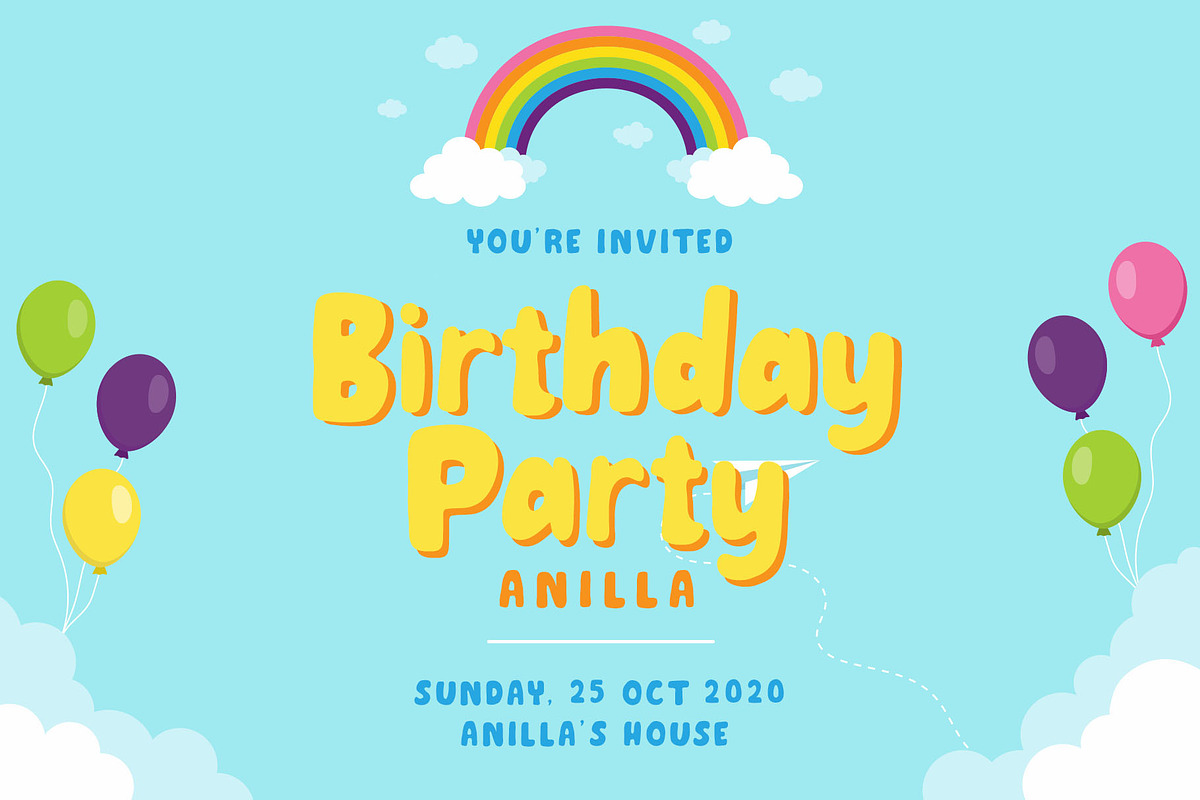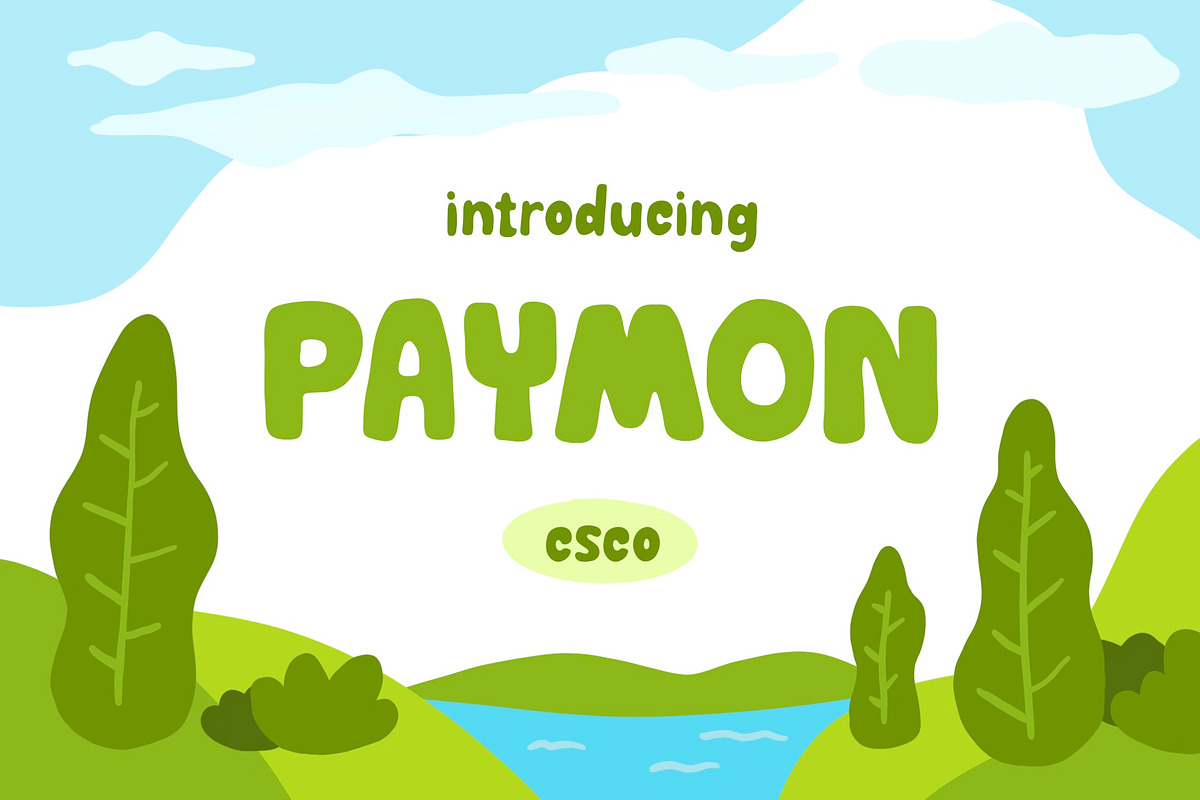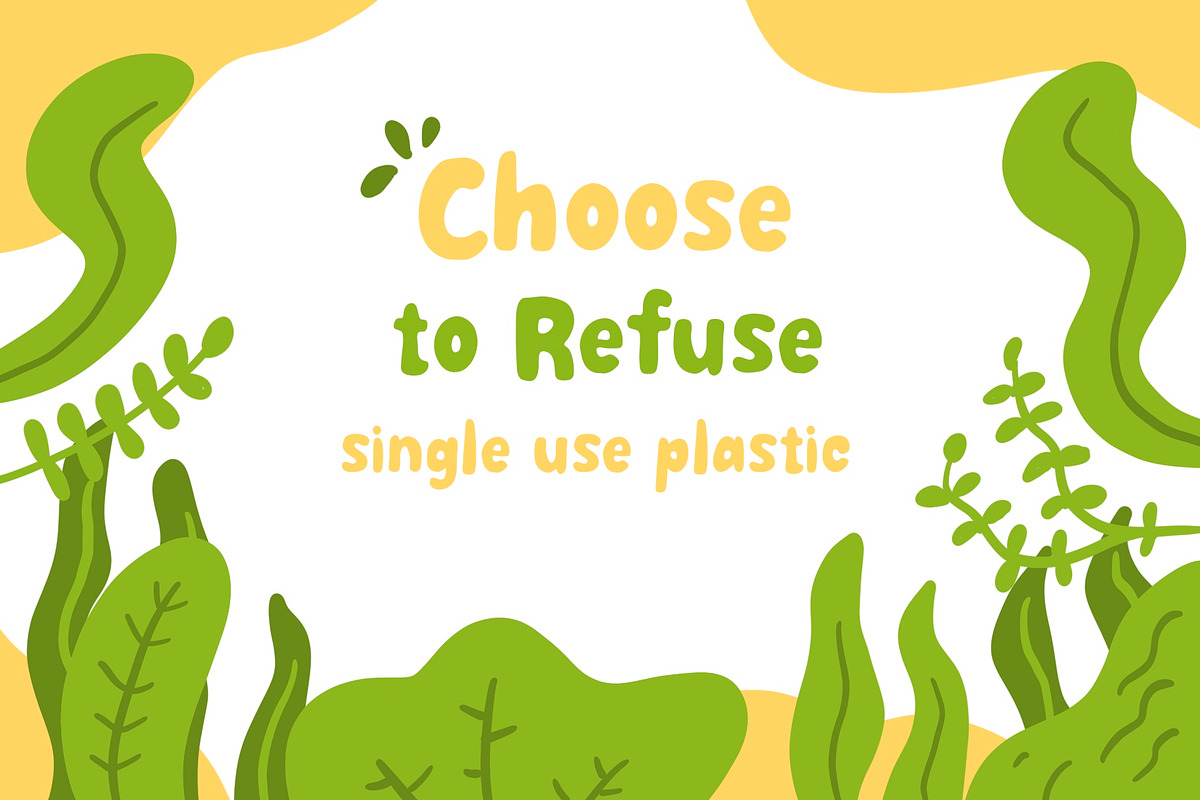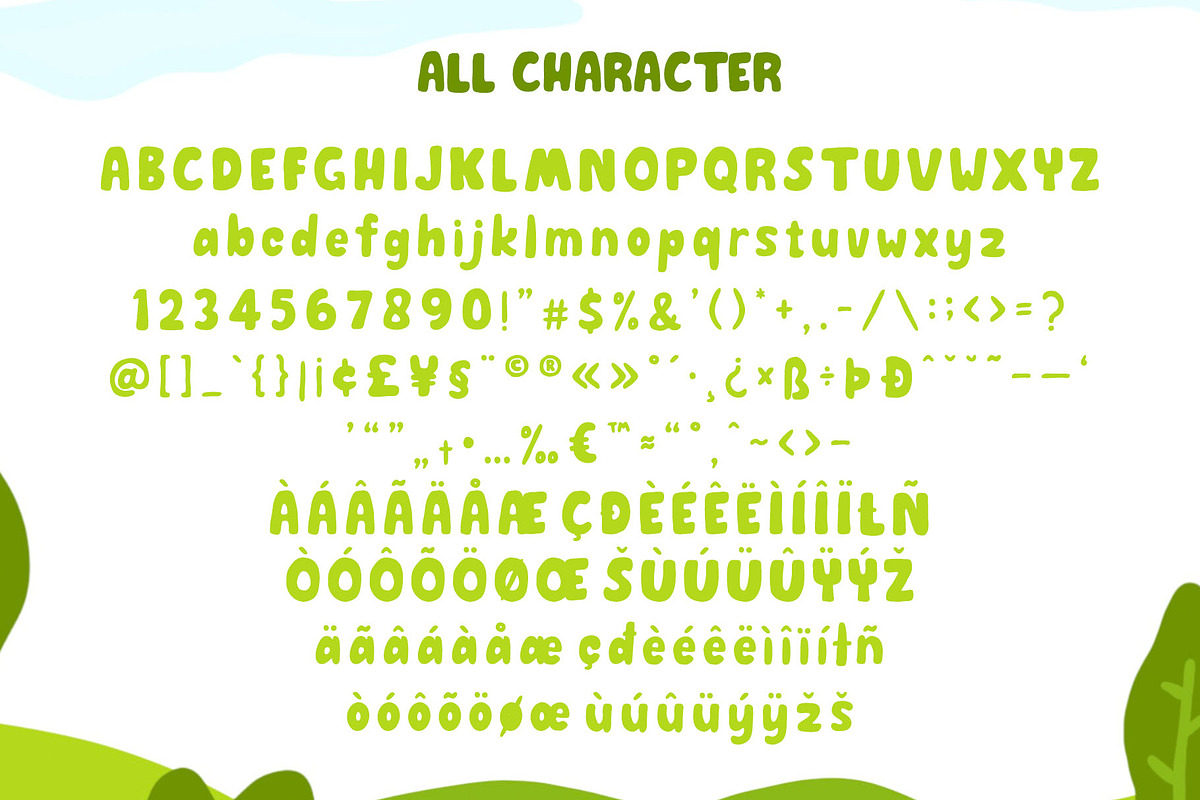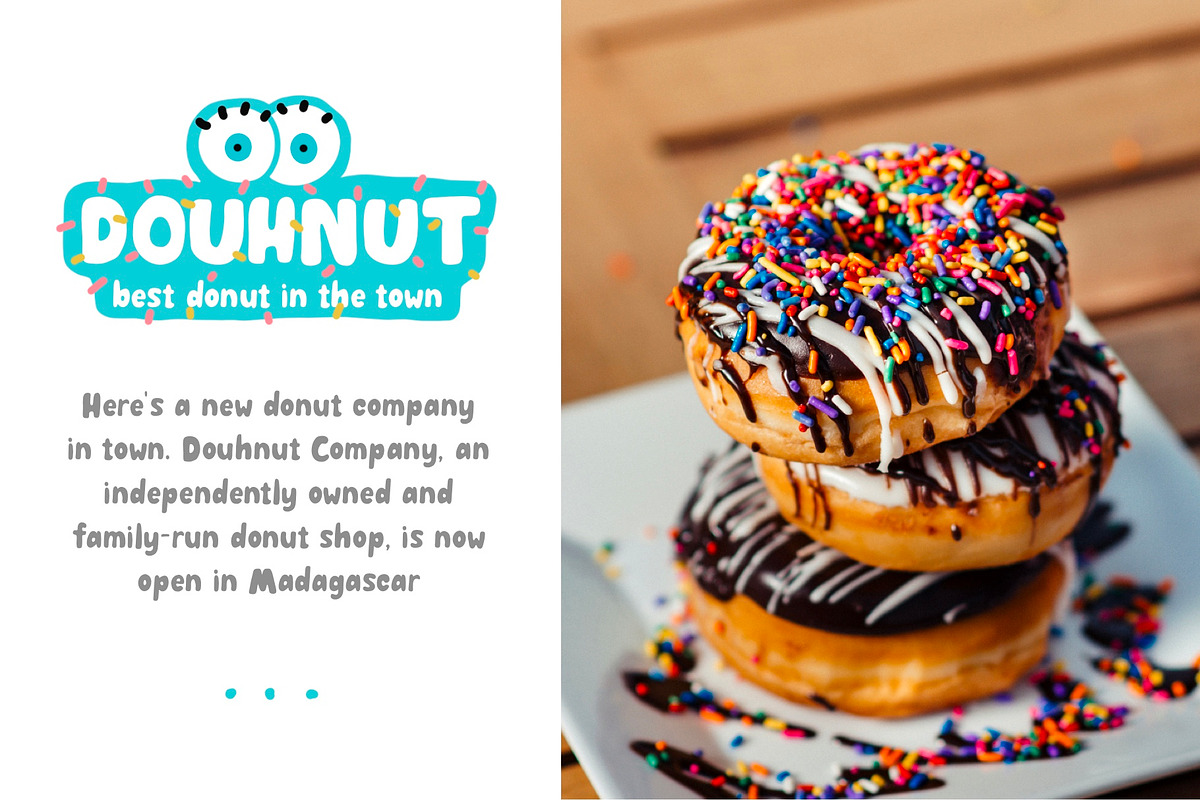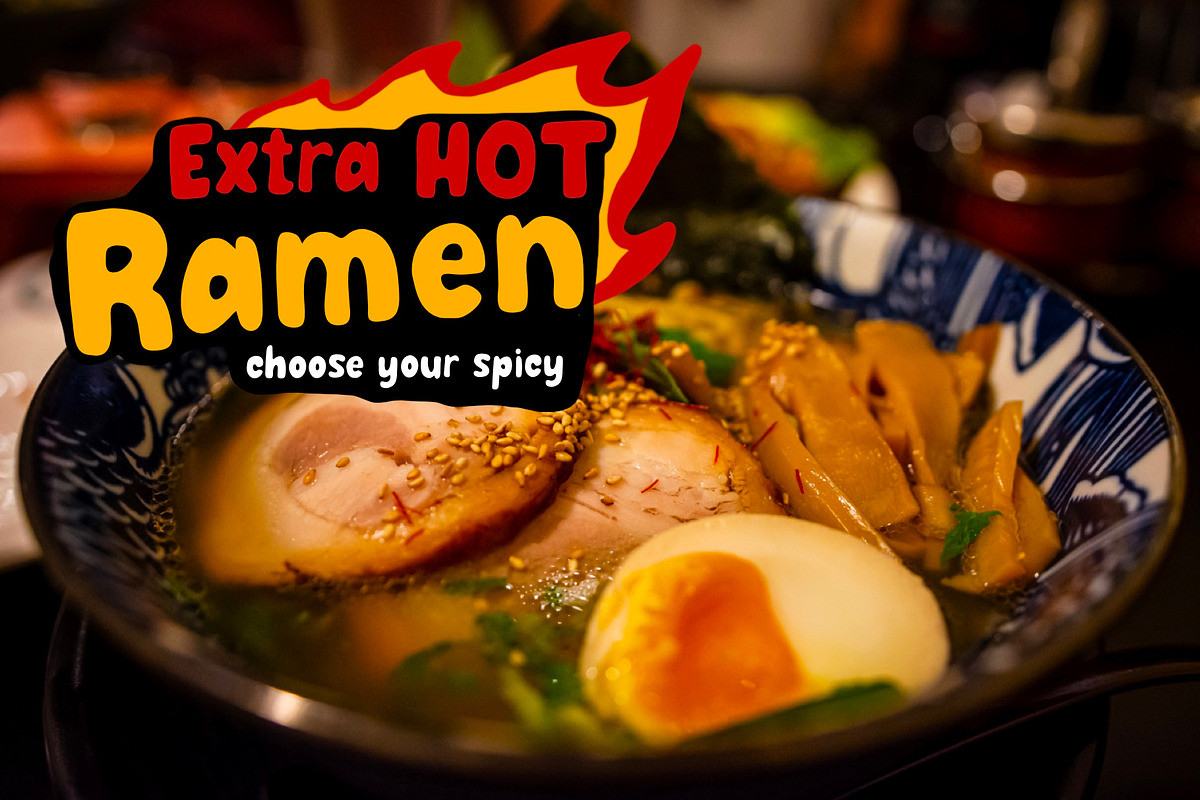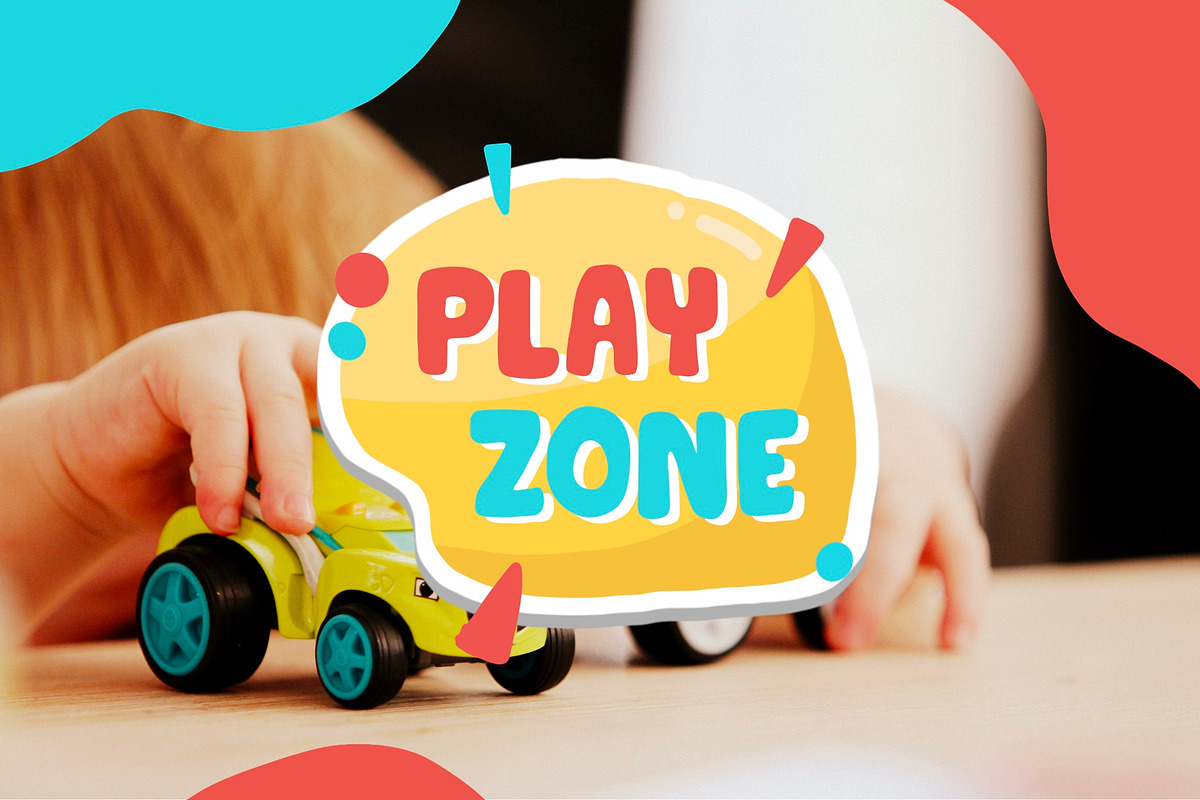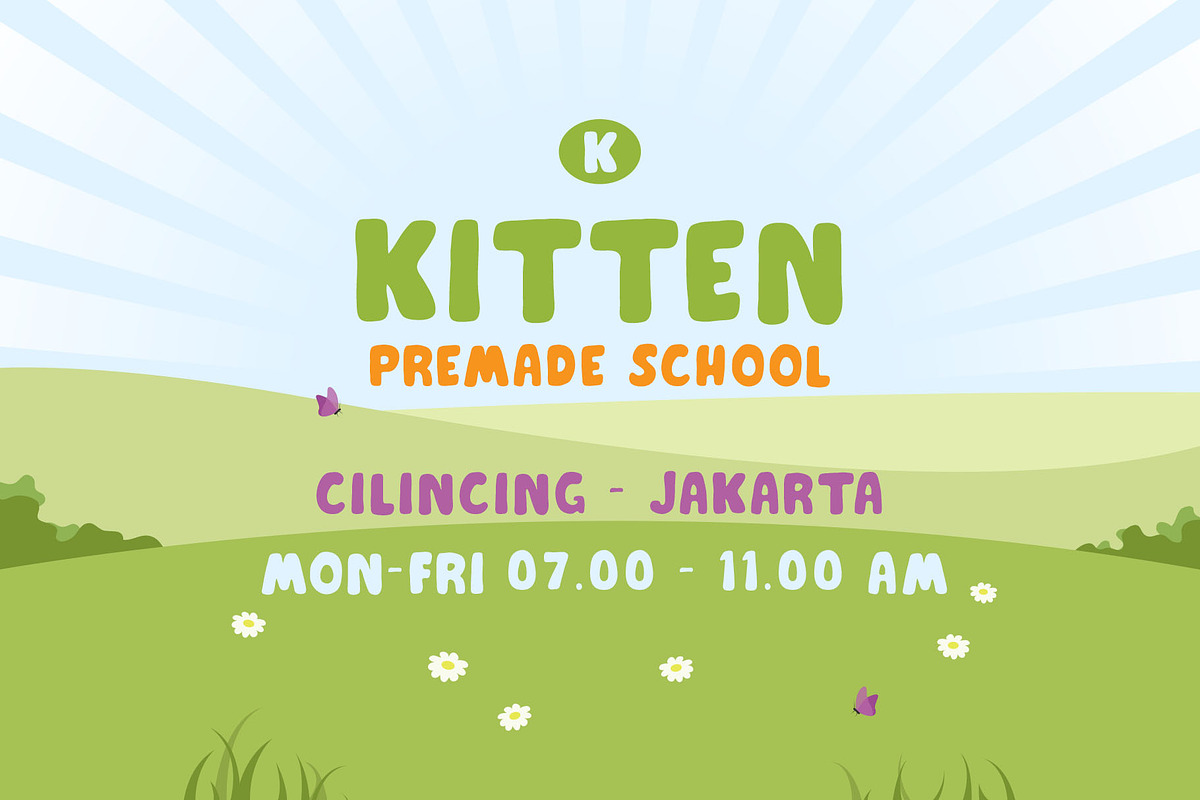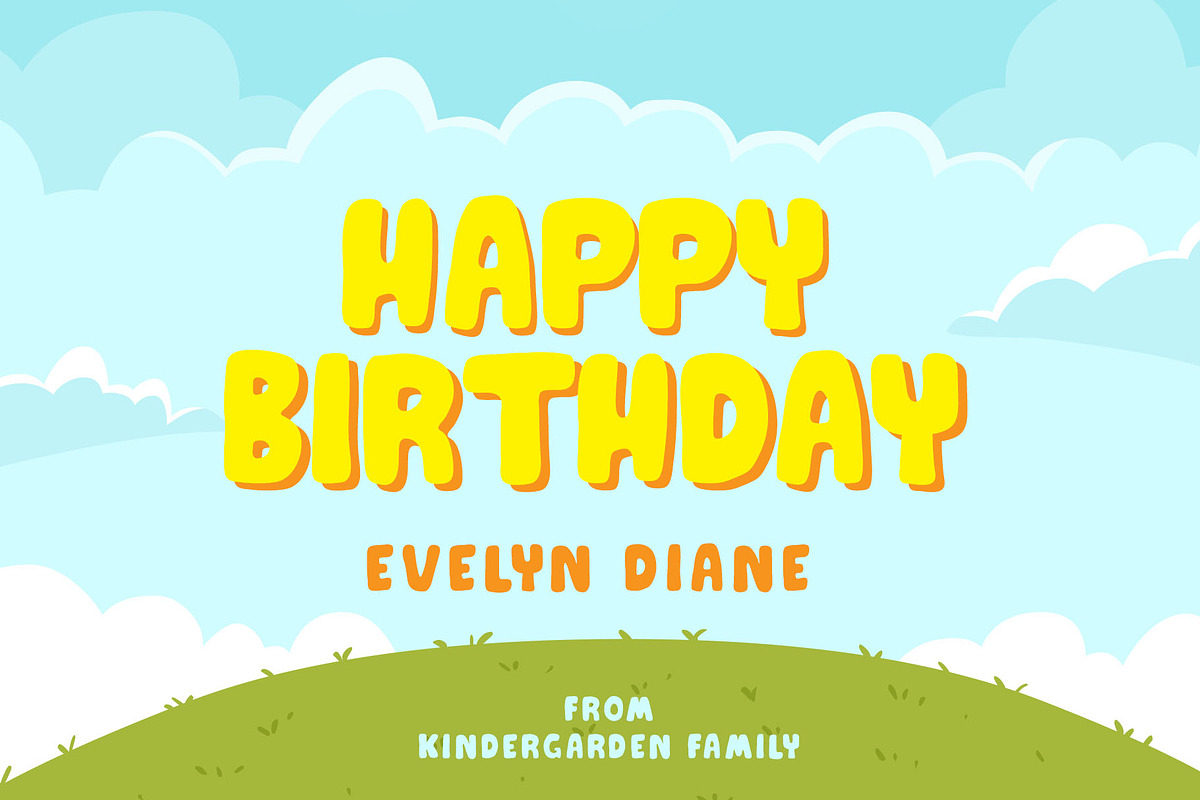
Paymon - Playful Display Font
Introducing New Font : Paymon - Playful Display Font
Paymon - Playful Display Font is an handwritten display font based on the expression of real handwriting, lets you transform type into an exciting and beautiful piece of work. The irregular, hand-lettered look adds a real human touch to things and comes along with a lot of loving details. Combine all font-styles the way you want, add some ornamental swashes or banners and even a single word becomes magnificent.
Paymon - Playful Display Font has lots of alternates that gives you possibility to build your text almost like handwriting with all the charming imperfections and variations that a real handwriting has. Bravely will work perfectly for fashion, e-commerce brands, trend blogs, wedding boutiques or any business that wants to appear upscale and chic.